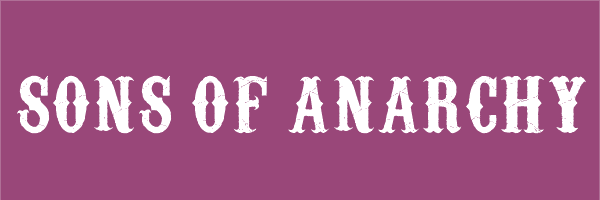
Sons Of Anarchy Font Name. And its corners are sharp with a fancy design that give the whole font extra creativity. Sons of anarchy font has available in just one regular style along with ttf file format.
Kfc font is a logo font that we have seen in the kfc title. The font used for the title of the tv series is carnevalee freakshow, which is free for personal use. This font is an exact replica of the one used in the original logo.
This Font Is An Exact Replica Of The One Used In The Original Logo.
The series tells the story of the taylor mao family in charming, ca. This font was designed by christopher hansen. This remarkable font has a solid thick texture that maintains the western look deeply.
It's An American Action Crime Drama Tv Series That Aired From 2008 To 2014.
The Series Is Centered On Jax Teller, Who Is Known For Many Things, But Many People Notice This Character’s Tattoos.
It Is Available In Only One Style.